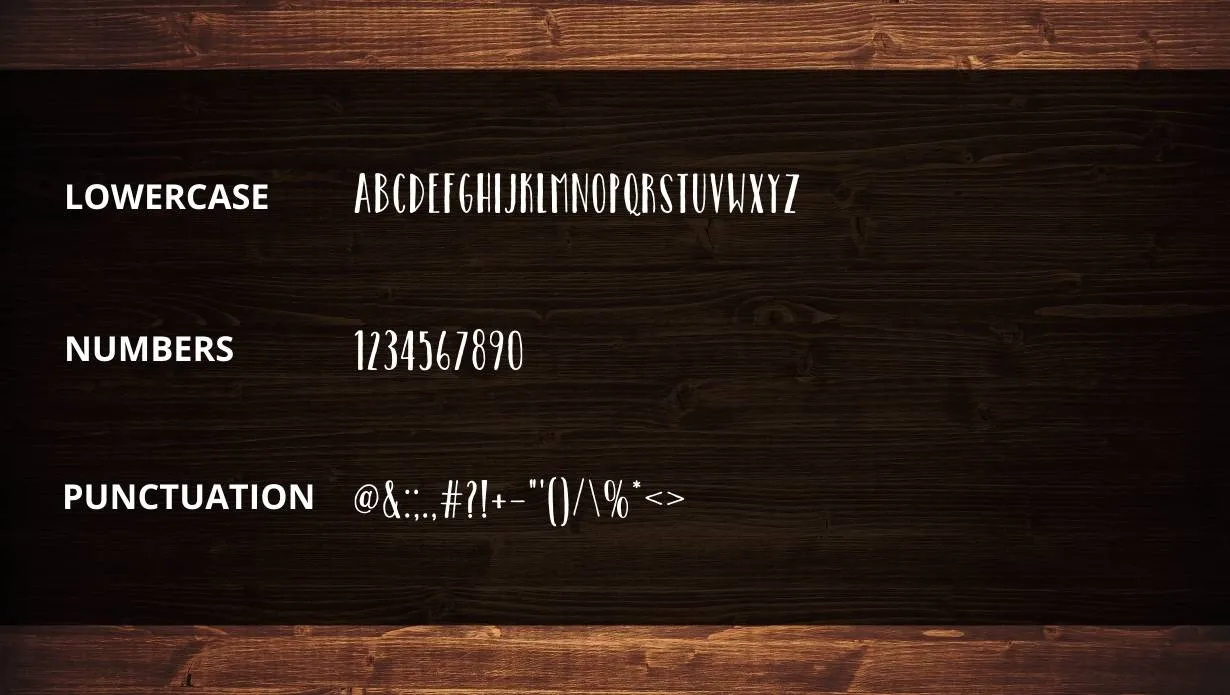
Catalina Avalon Sans Font is a sans-serif typeface created by American-type designer Jesse Ragan. The font was named after Catalina Island off the coast of Southern California.
Ragan’s typefaces have been recognized by the Type Directors Club, Communication Arts, and Print magazine. He is a recipient of the 2016 AIGA Medal for Excellence in Typography. Ragan teaches typeface design at the Maryland Institute College.
| Designer | Jesse Ragan |
| Style | Sans Serif |